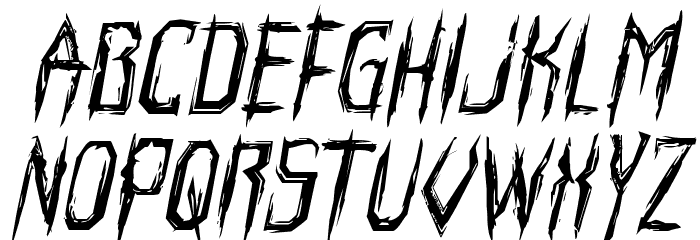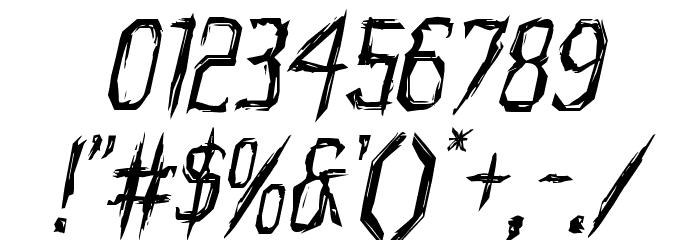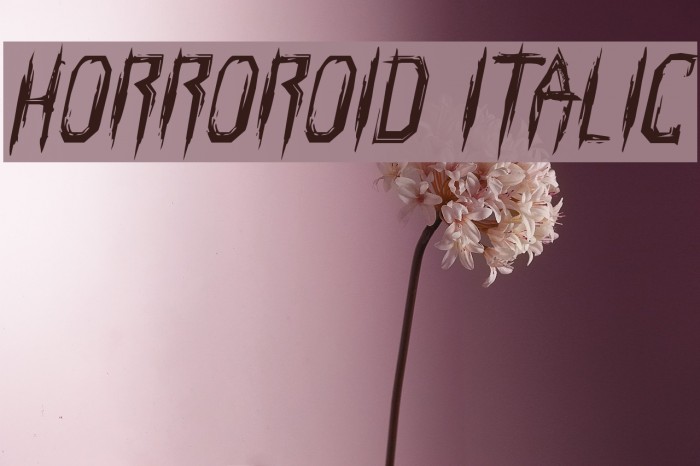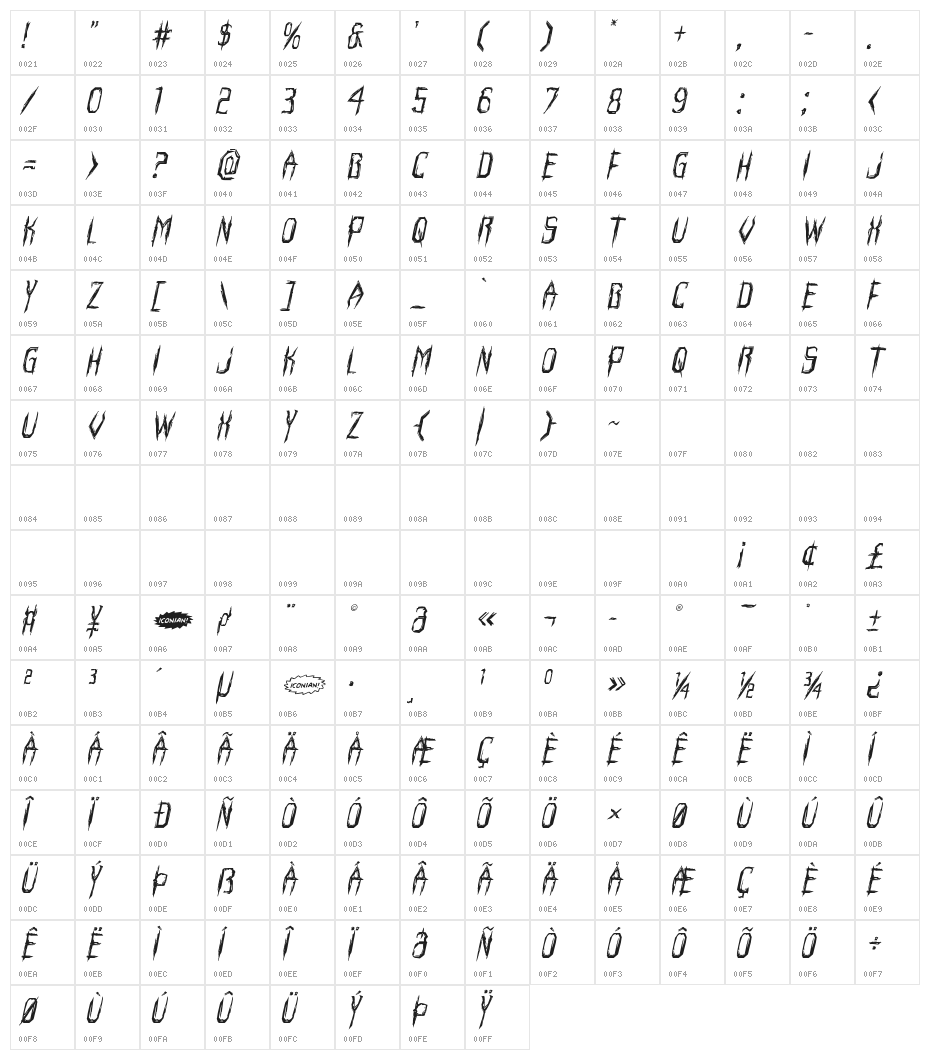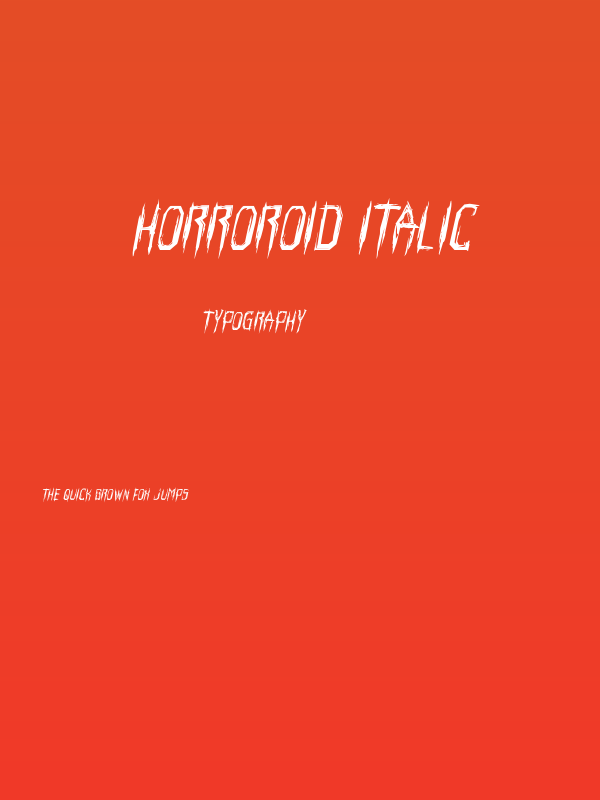
Horroroid Italic Font
This font exudes a chilling and eerie aesthetic, characterized by jagged, sharp edges and a distressed appearance. The letters appear as if they are clawed or torn, evoking a sense of horror and suspense. The uppercase and lowercase letters maintain a consistent style, with elongated strokes and irregular angles that enhance the unsettling vibe. Numbers and special characters follow the same design principles, ensuring a cohesive look across all glyphs. The overall impression is one of chaos and intensity, making it ideal for projects that require a dramatic and spooky touch.
A jagged, horror-themed font with sharp, distressed edges.
- Proposed Projects: Ideal for Halloween-themed designs, horror movie posters, haunted house advertisements, and spooky event invitations.